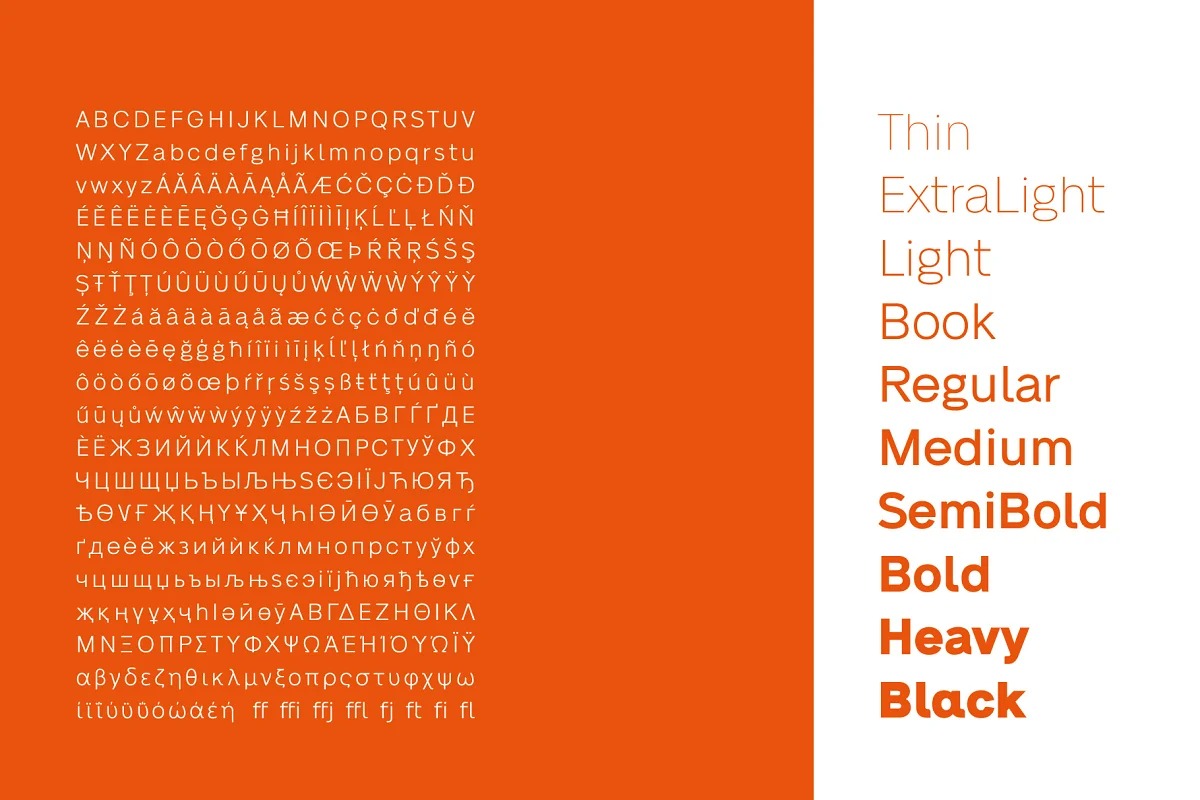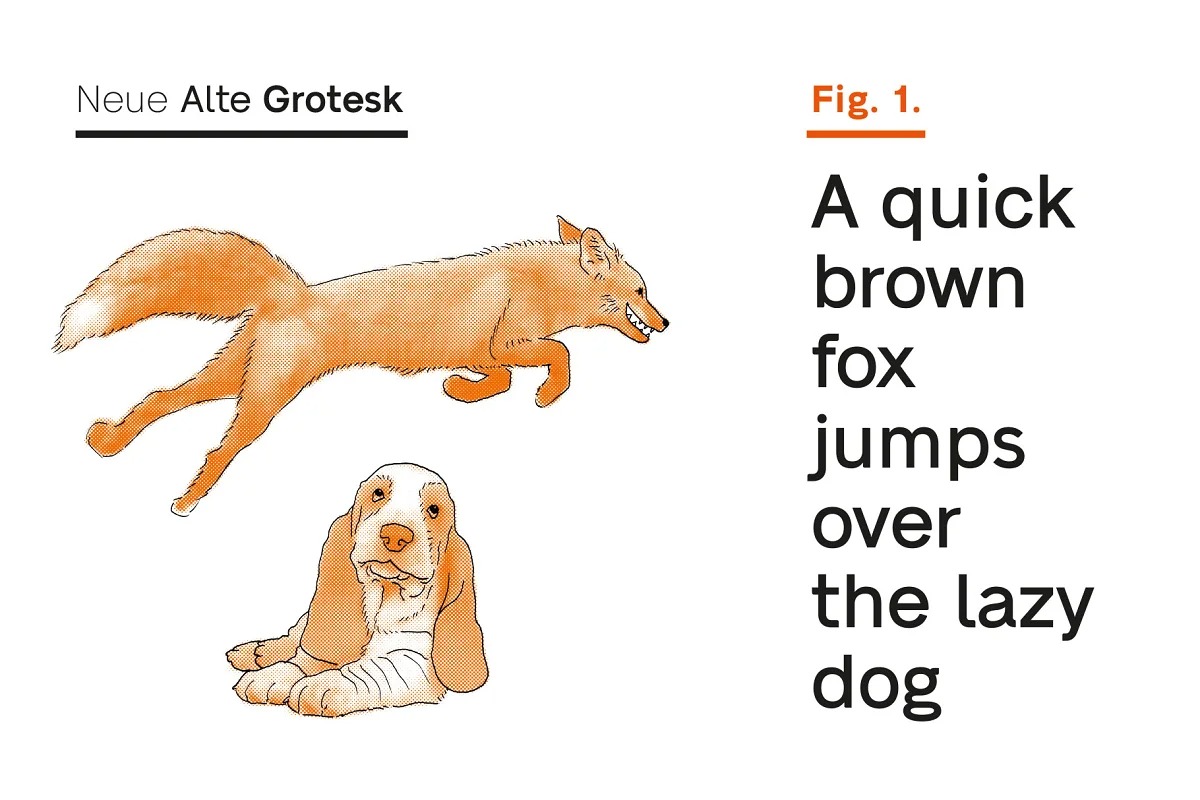
Neue Alte Grotesk Font Family
Neue Alte Grotesk Sans Serif Font
It’s a geometric sans serif typeface family, a combination of straight lines and perfect circles and sharp edges. Inspired by German grotesk from XIXth century. Driven by the spirit of 1950s Swiss Style. Designed with a hint of constructivist approach. It is created to connect both new and old. It will look good in juxtaposition with retro-styled illustrations and ultra-modern graphics.